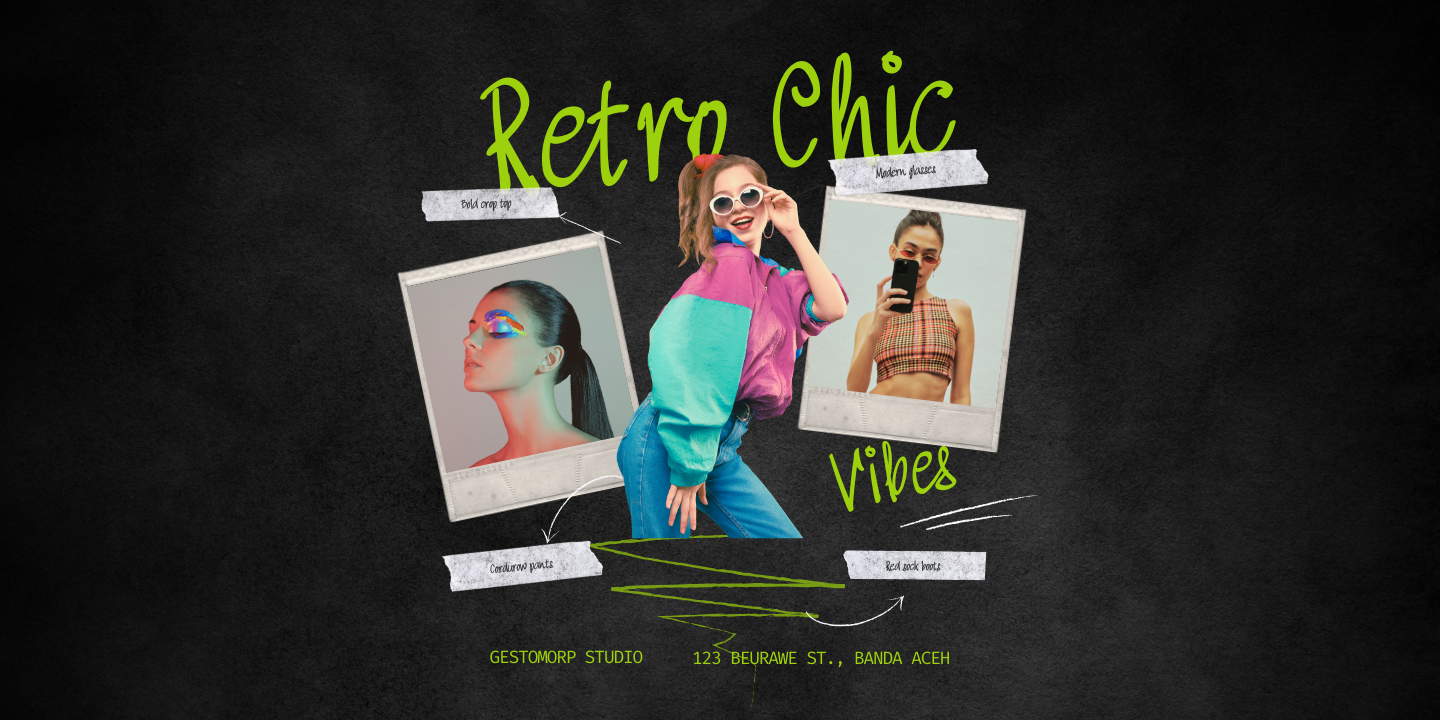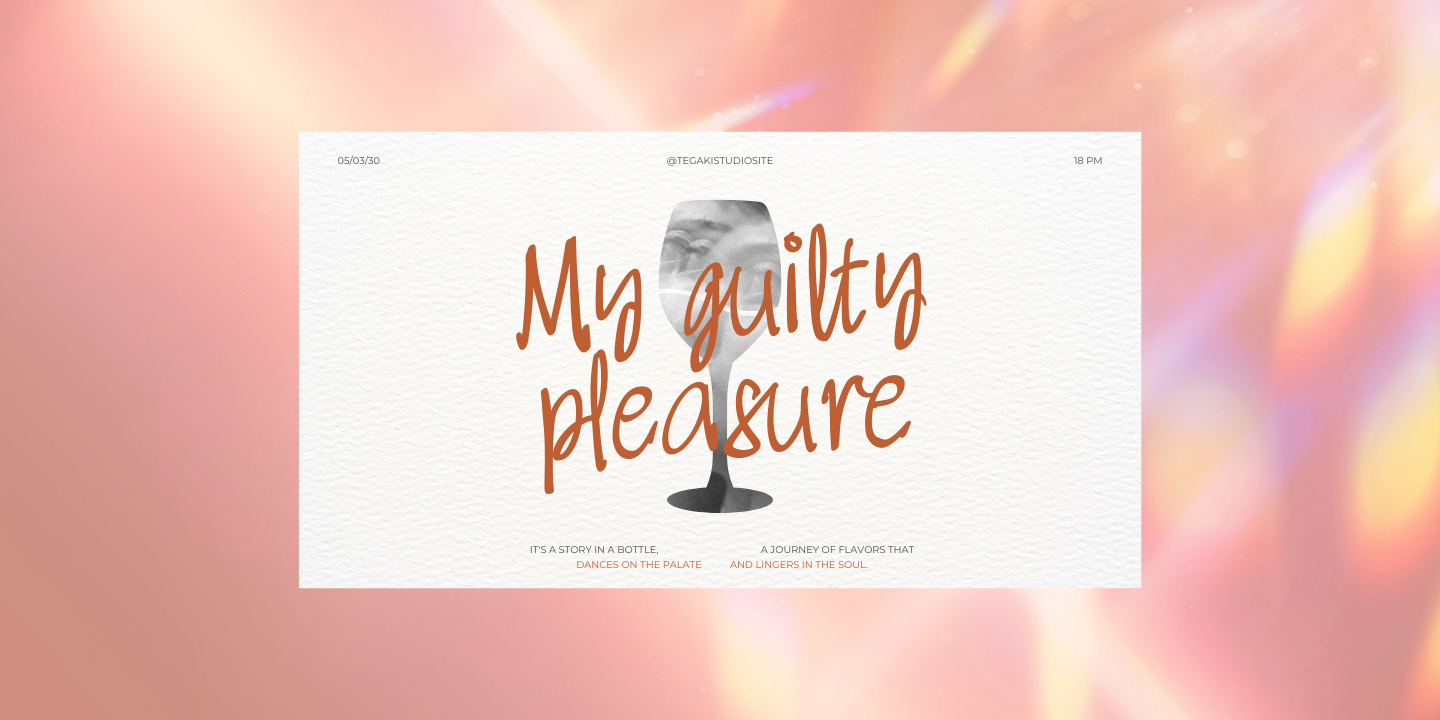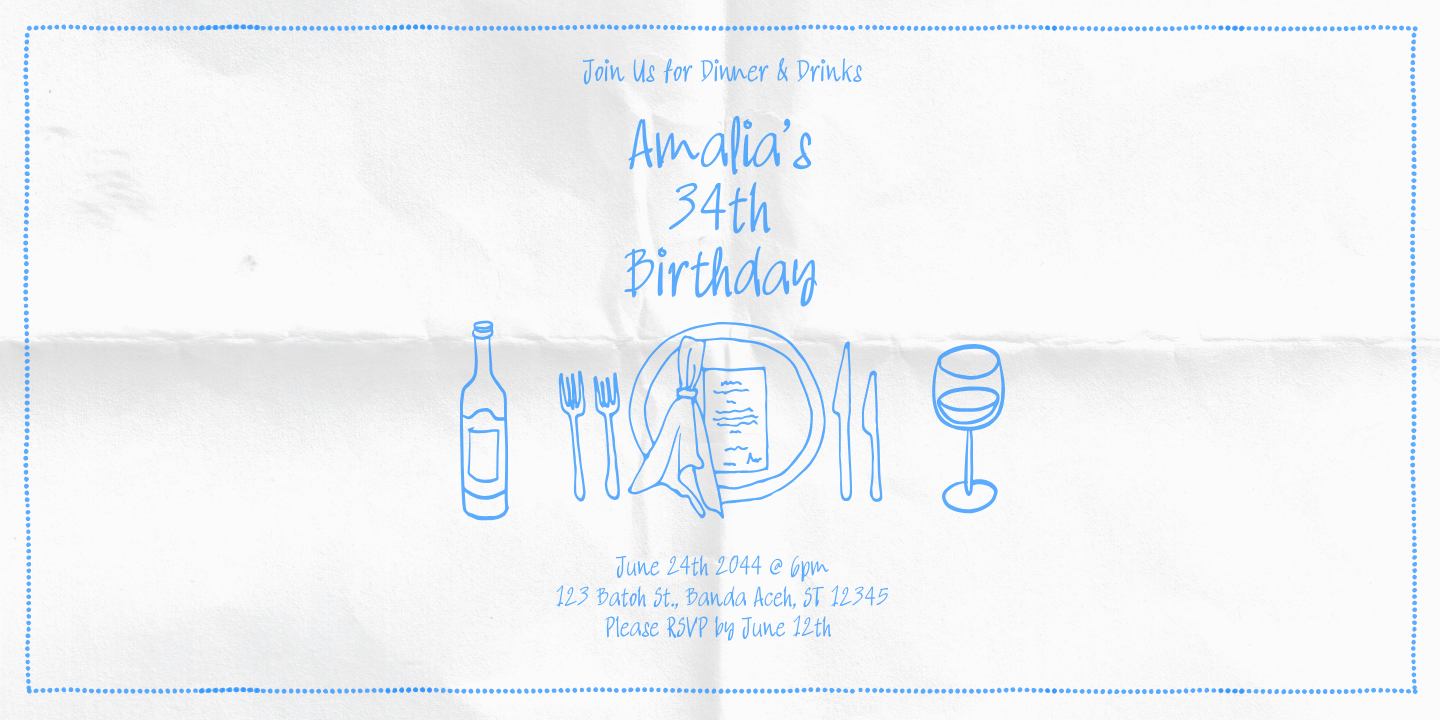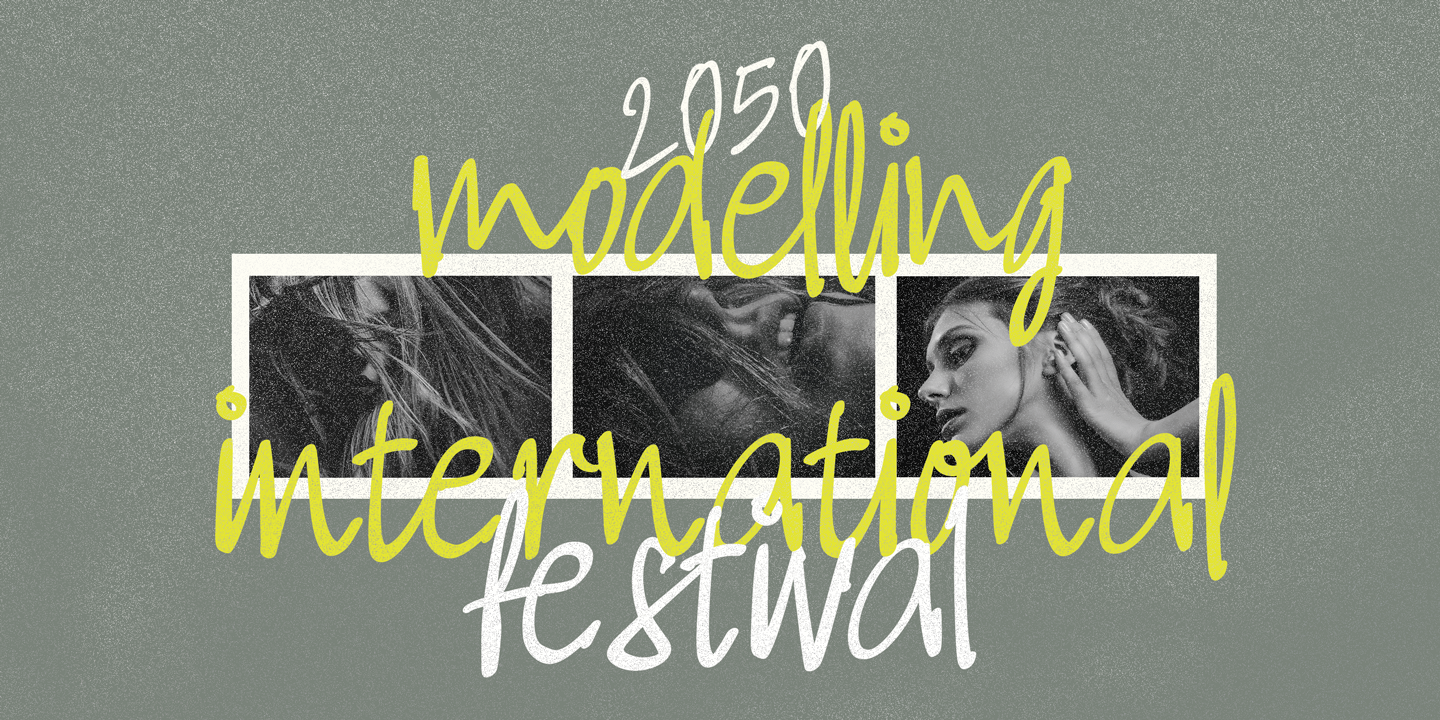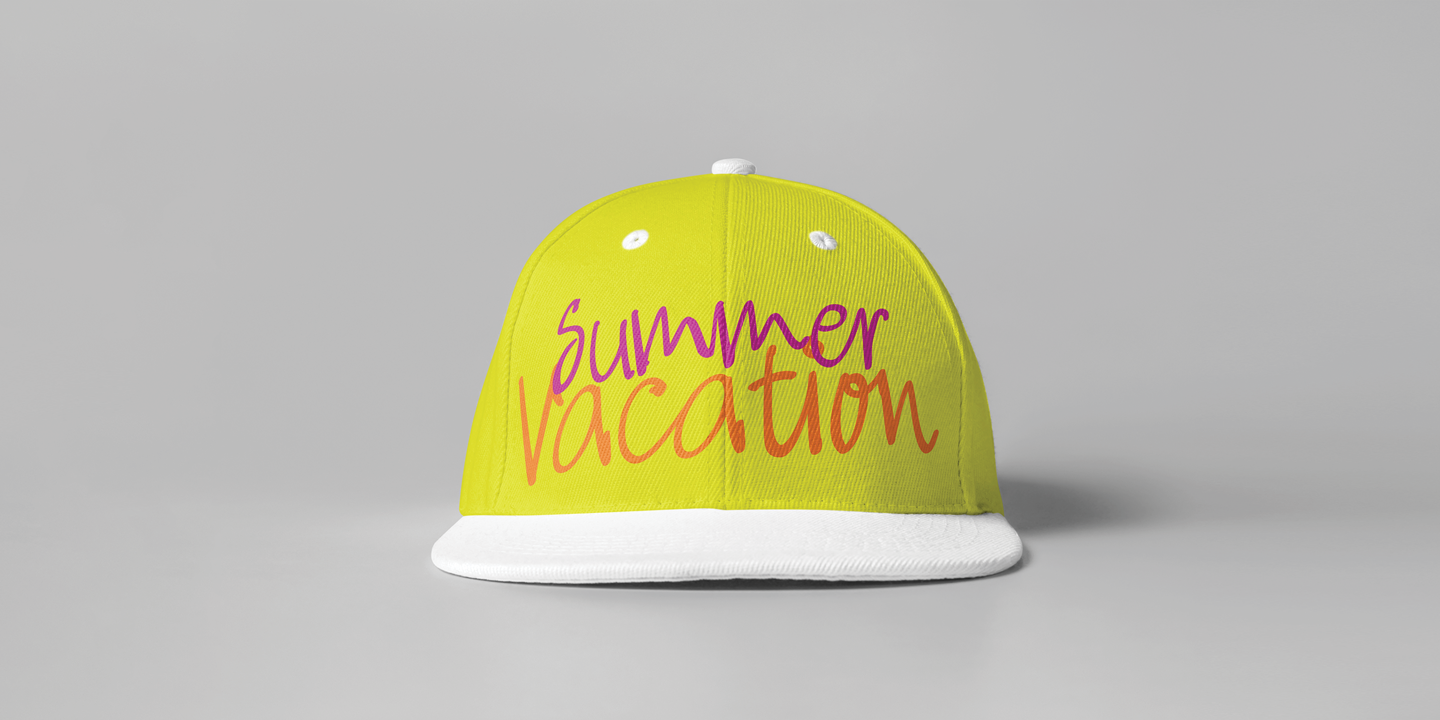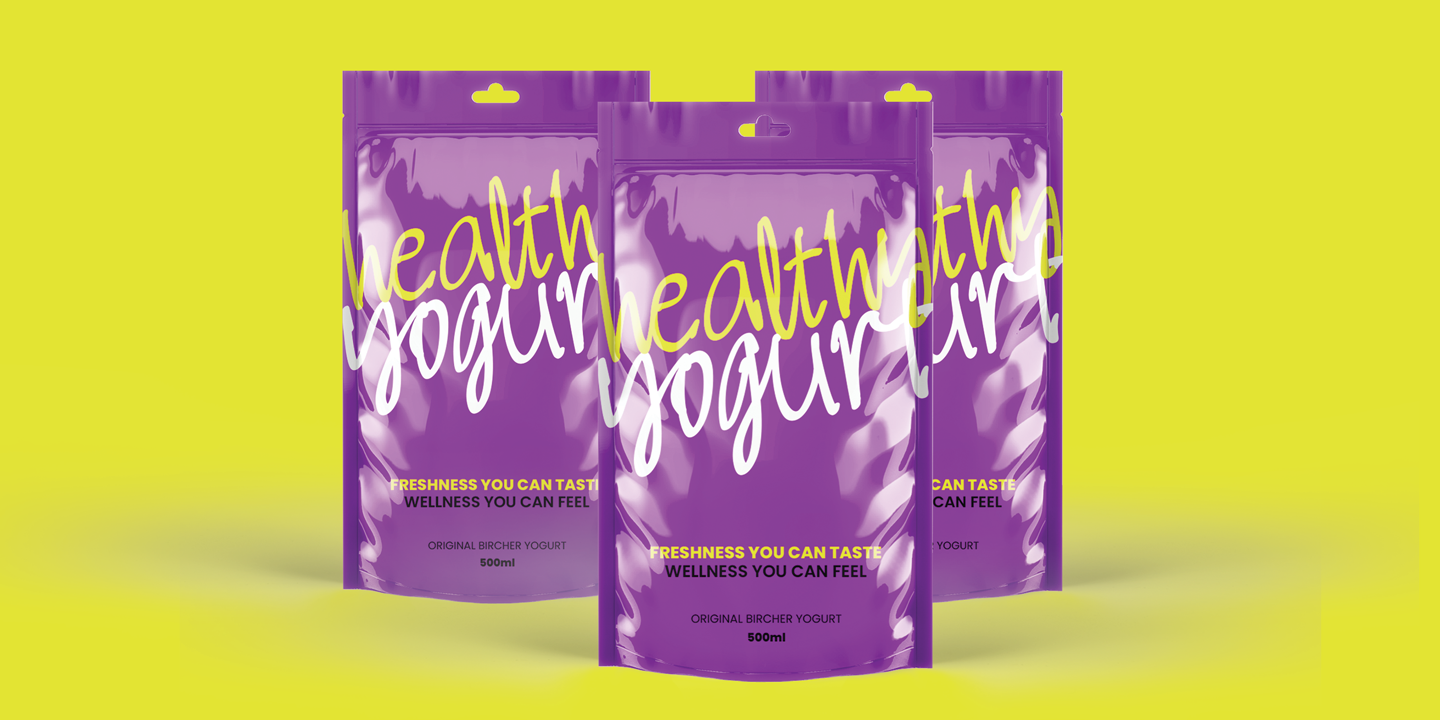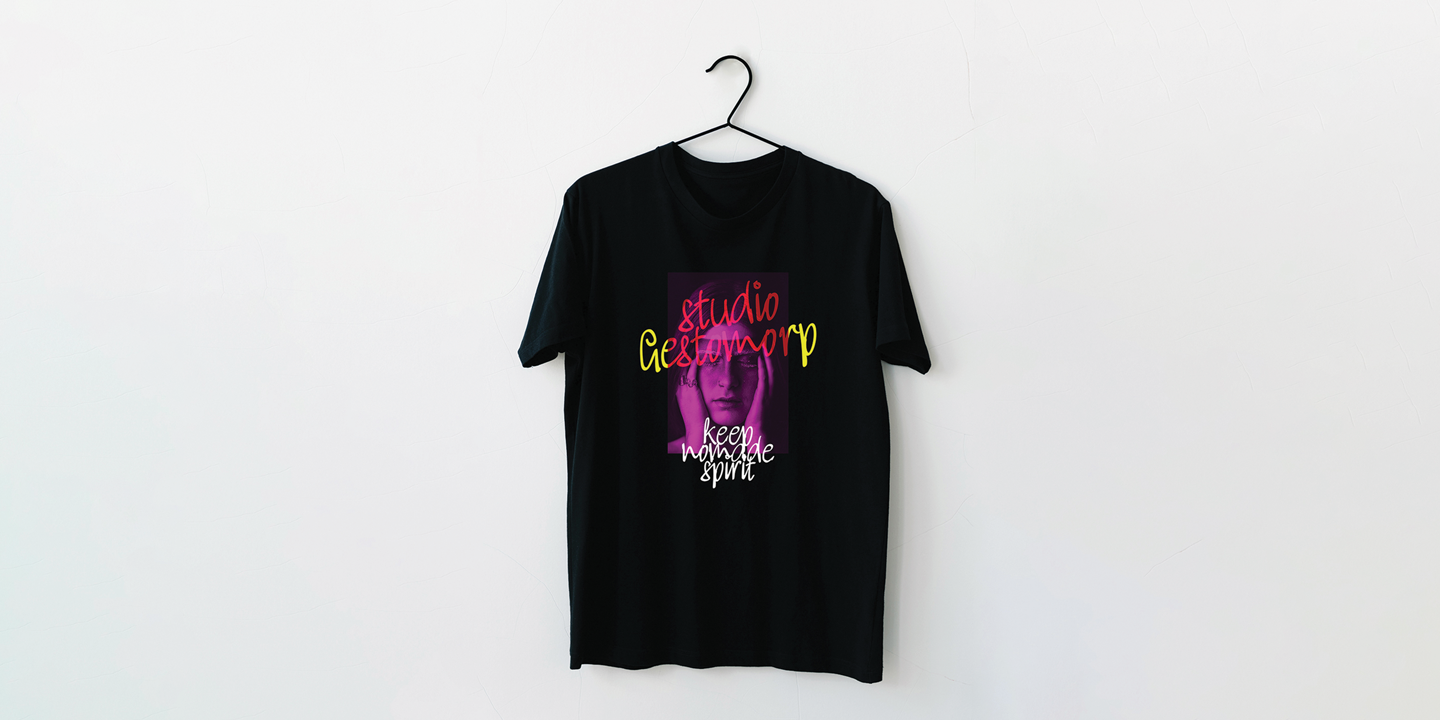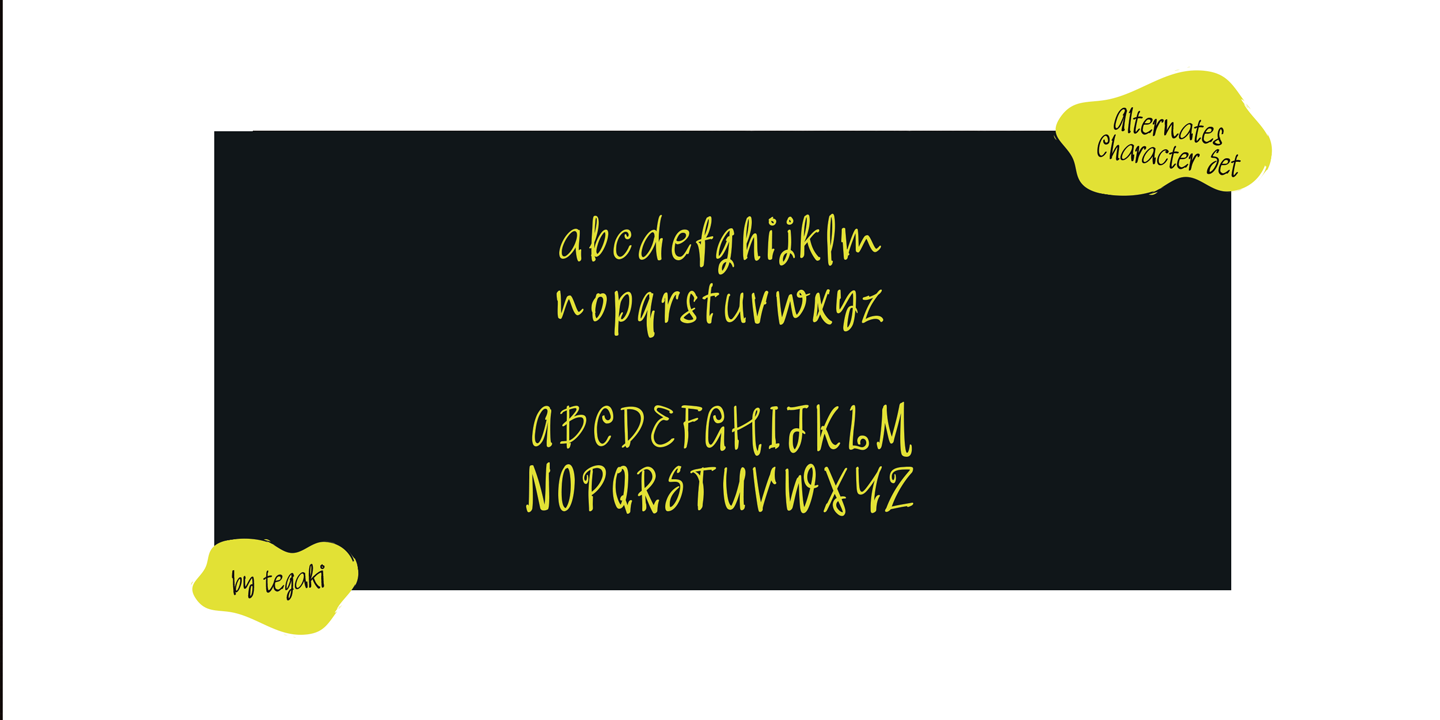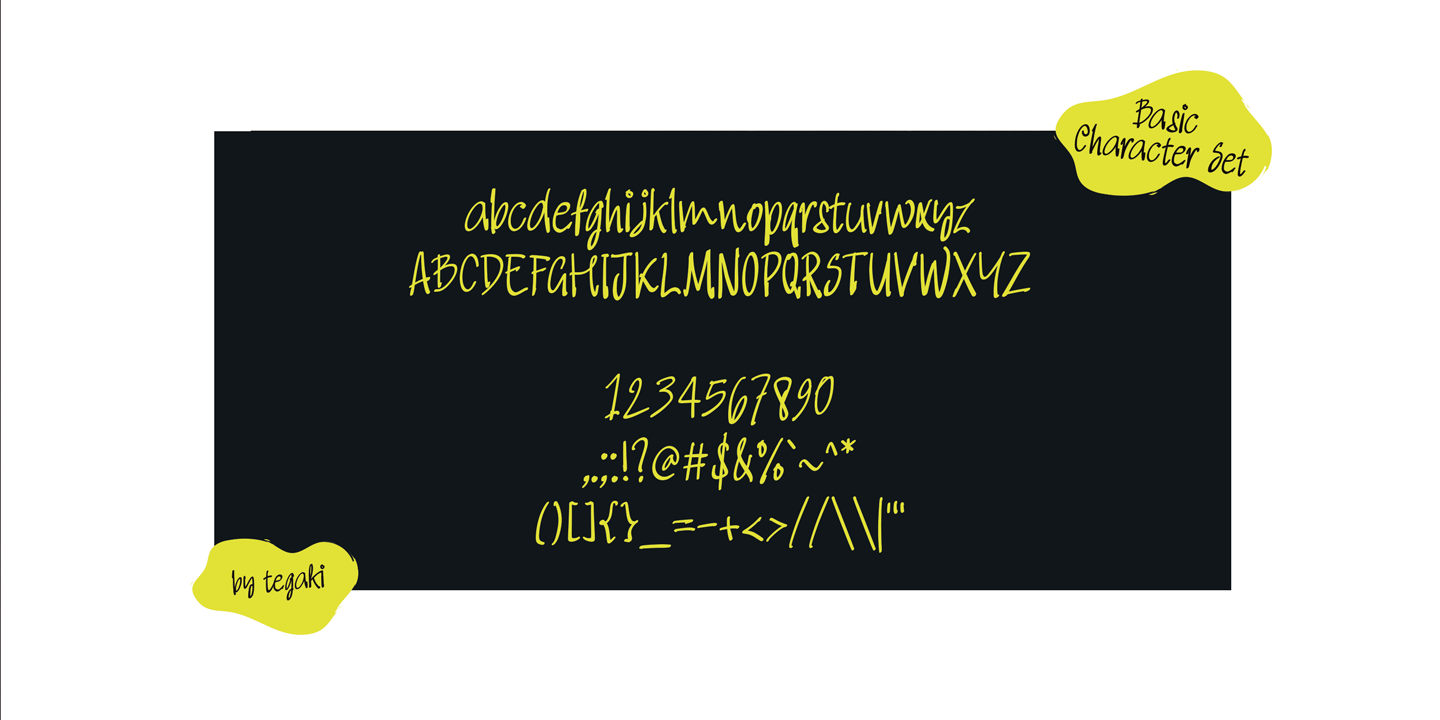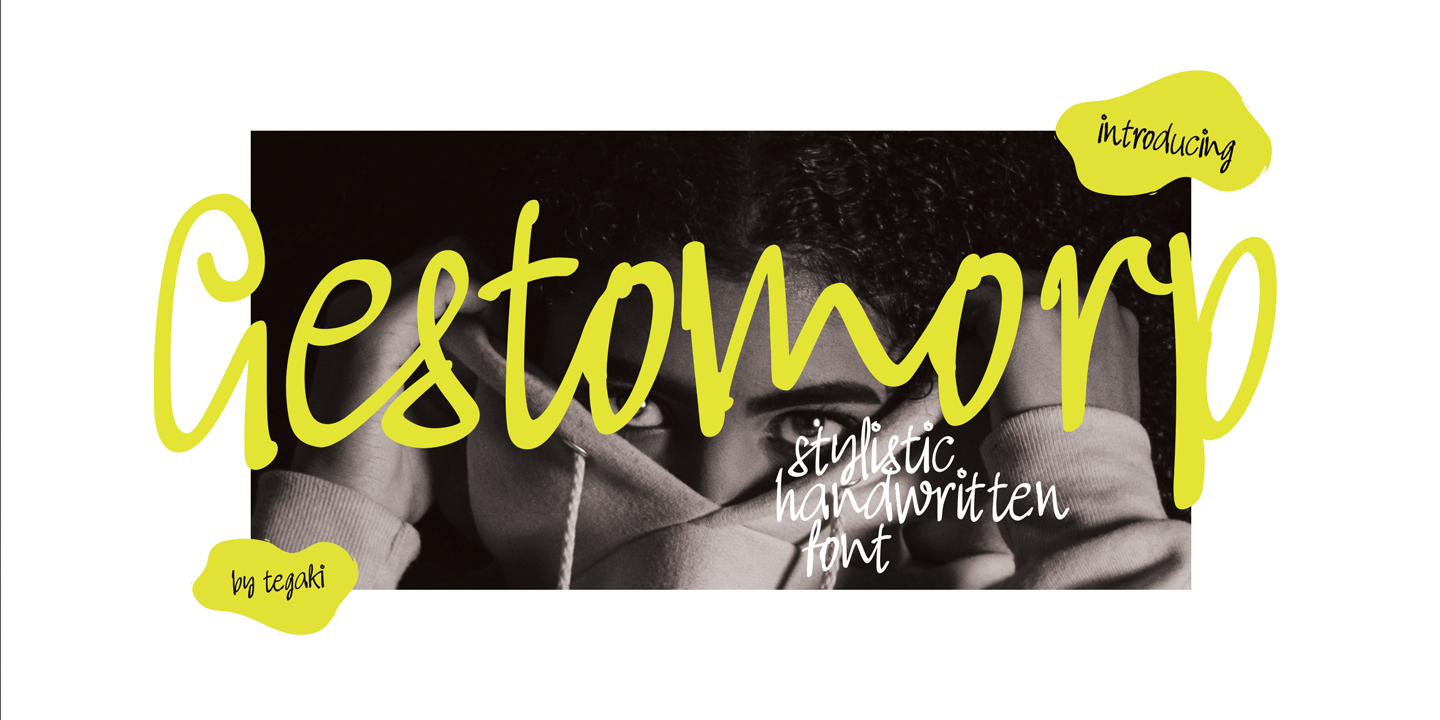
Gestomorp (1 font)
Features:
- Swashes: Beautiful decorative strokes for a polished, artistic finish.
- Alternate Characters: Customize your text with a variety of stylish letterforms.
- Extended Latin Characters: Multilingual support to connect with audiences worldwide.
- Ligatures: Unique letter pairings for smooth and authentic handwritten aesthetics.
Gestomorp is the ultimate choice for creatives who want their work to stand out with sophistication and charm. Let your designs speak with personality and grace.